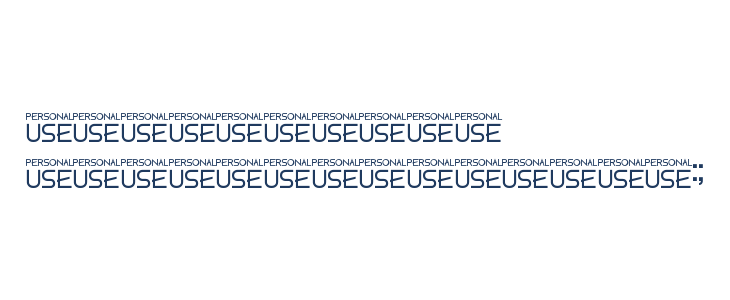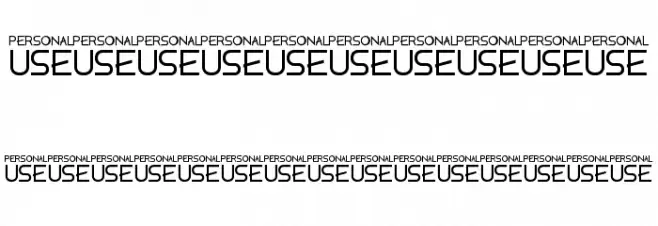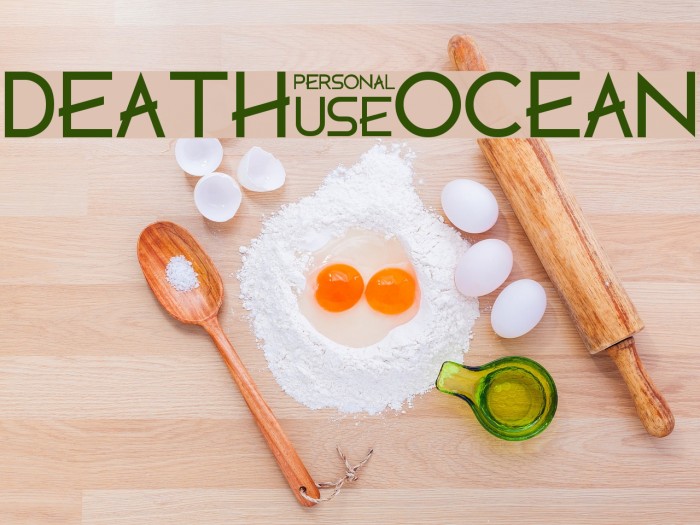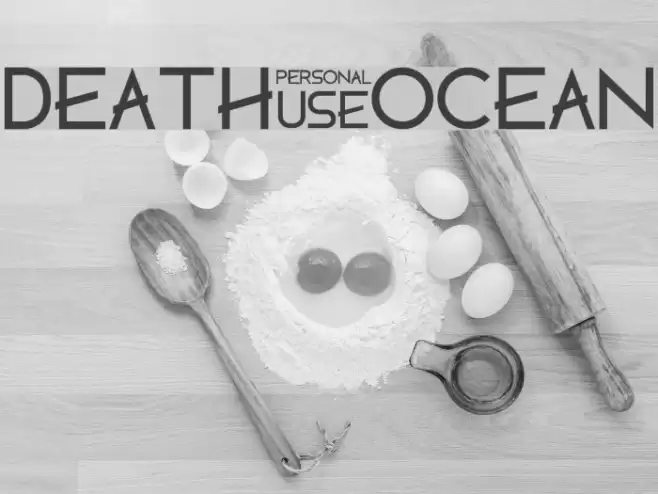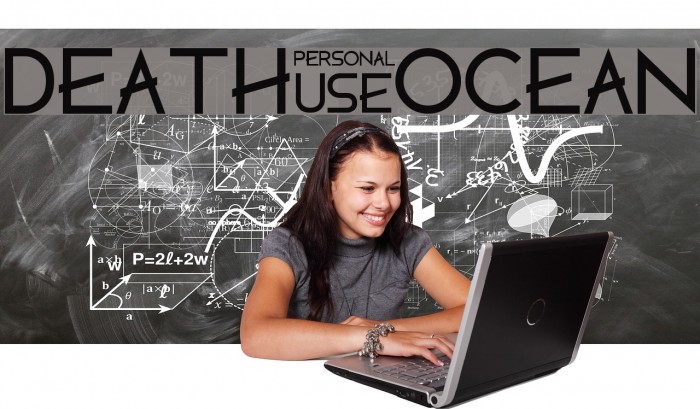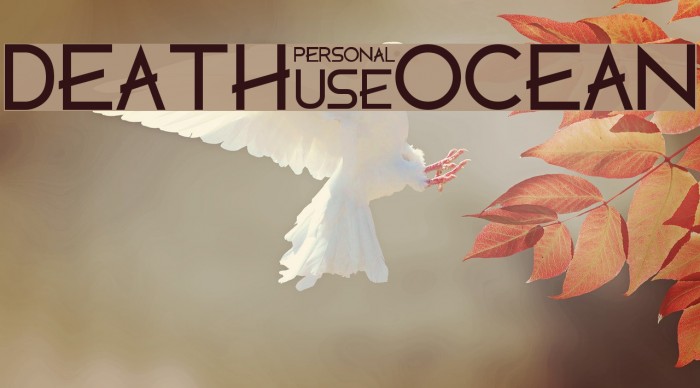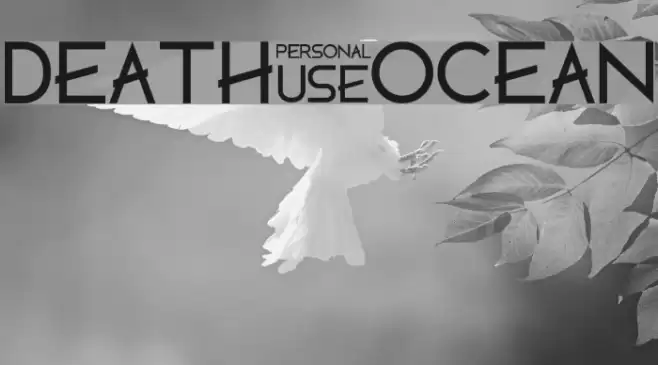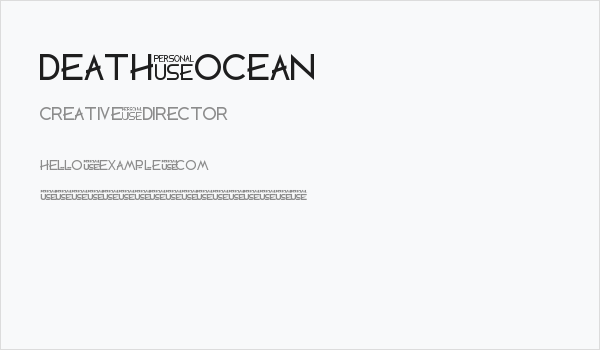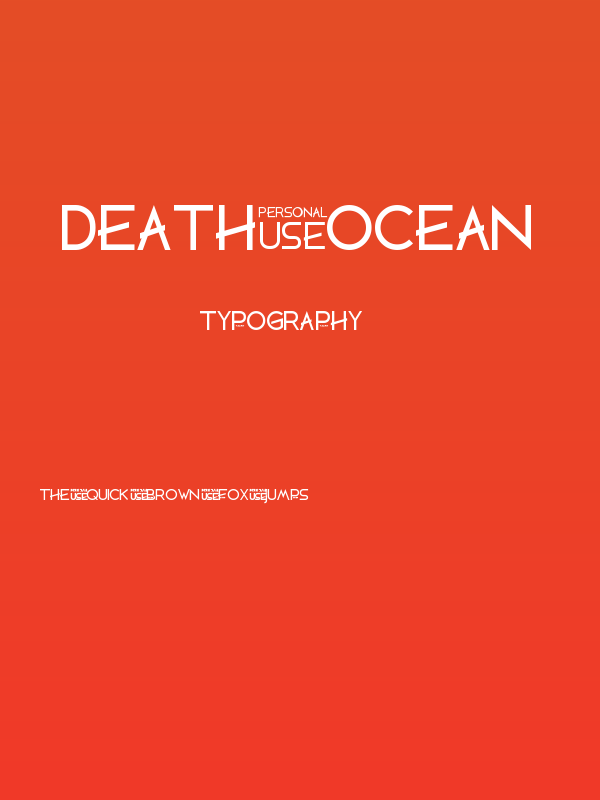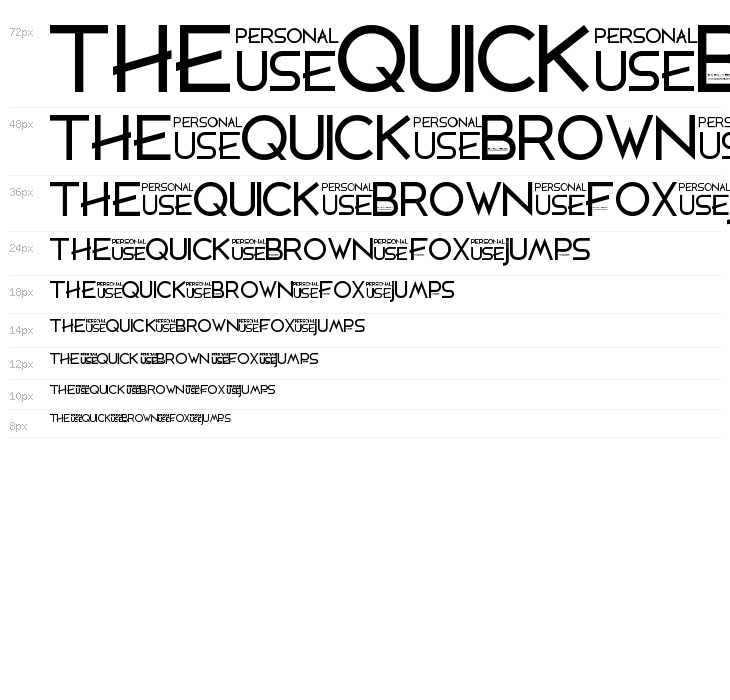
DEATH OCEAN Font
DEATH OCEAN Description
This font features a bold and geometric design, characterized by its sharp angles and clean lines. The uppercase letters are distinct with a futuristic and industrial feel, making it stand out in any design. The characters are uniformly spaced, providing a balanced and cohesive look. The font's modern aesthetic is complemented by its strong presence, making it ideal for impactful headlines and branding materials. Its unique style is both eye-catching and versatile, suitable for various creative projects.
| Proposed Projects | Ideal for branding, headlines, posters, and modern design projects. |